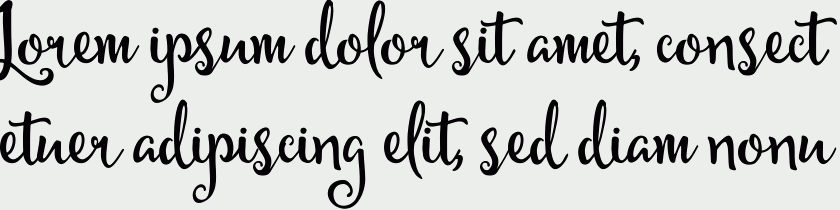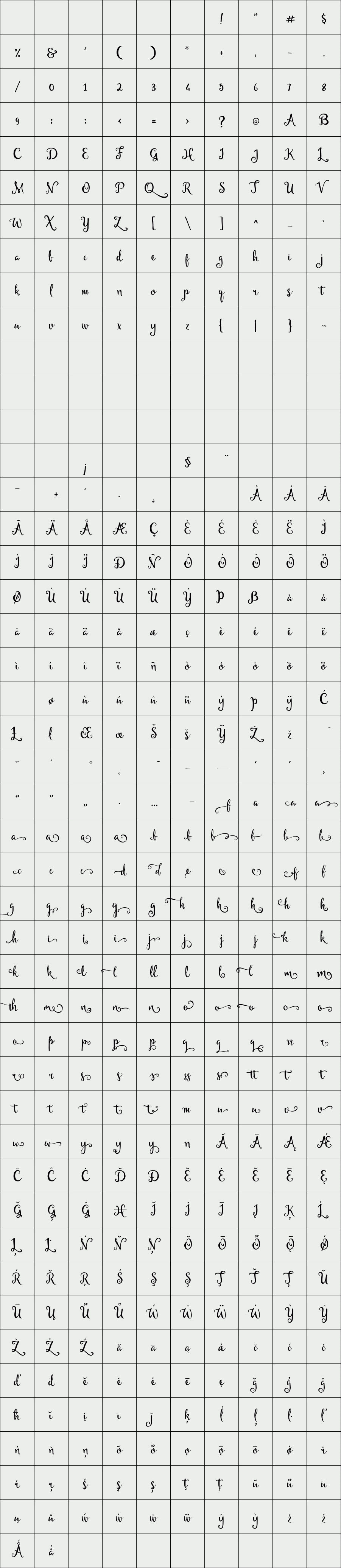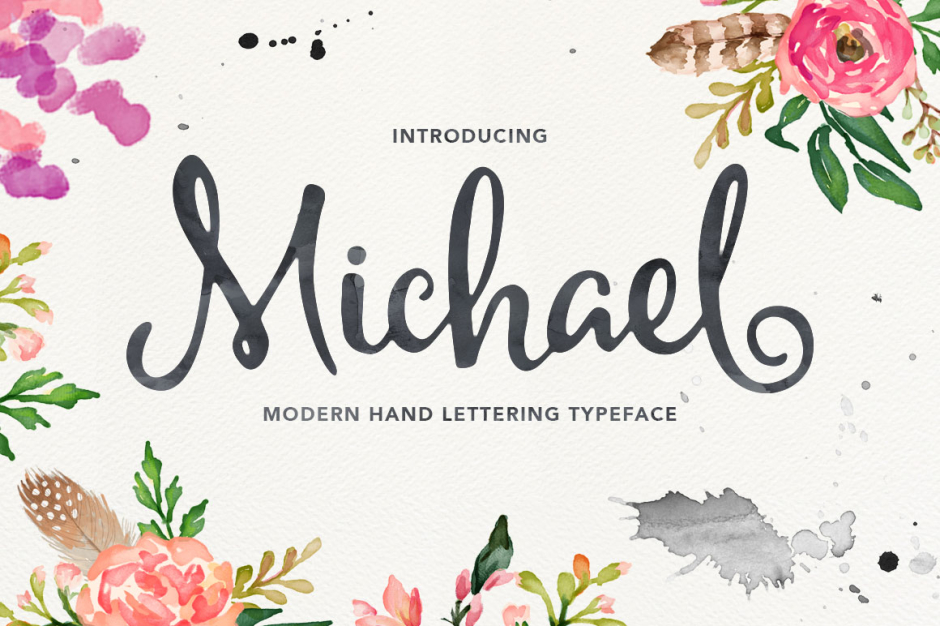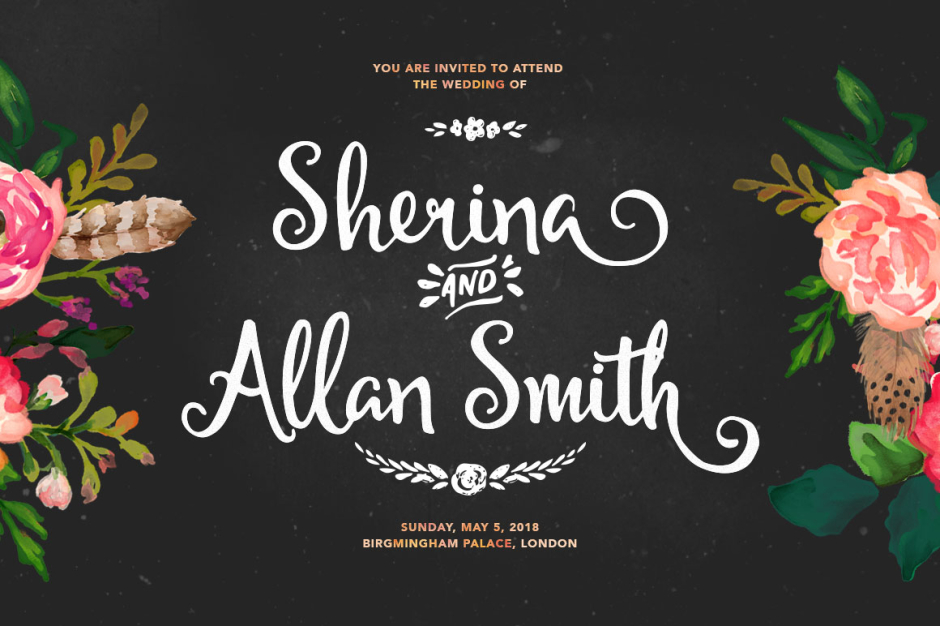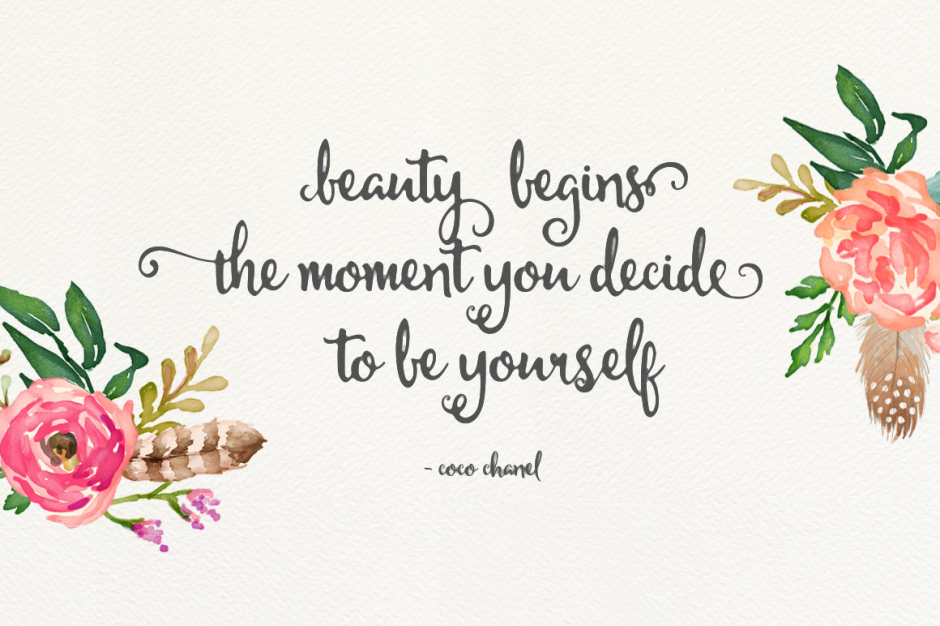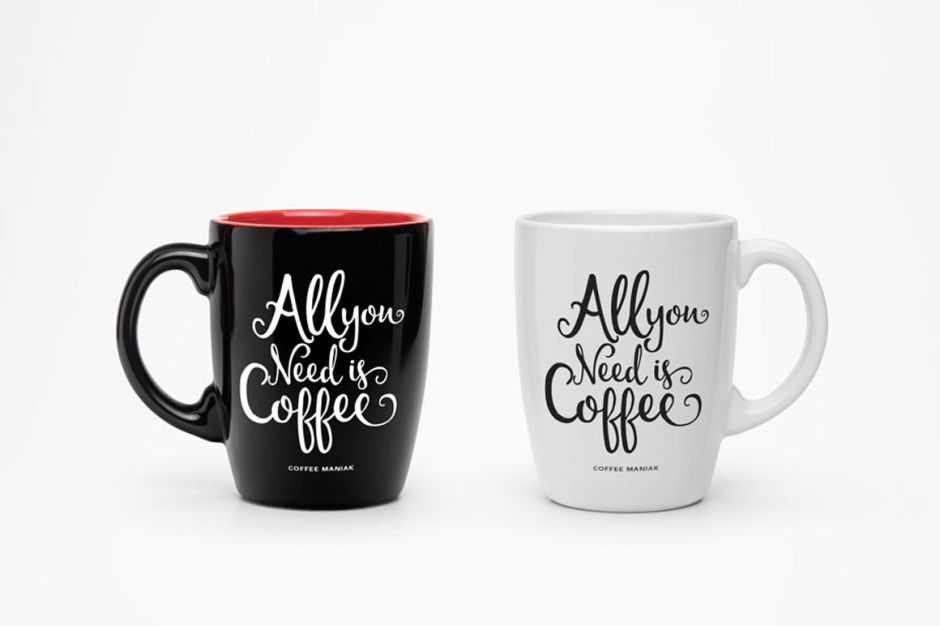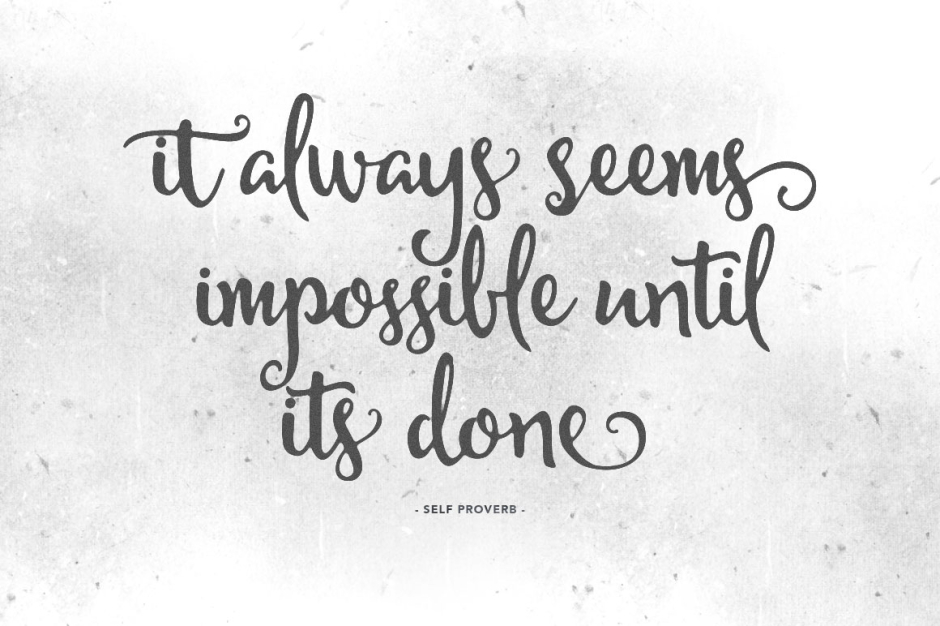
michael
Michael is handmade script font cooked with feeling. Including a tons of glyphs, initial and terminal letters, alternates, ligatures and multiple language support.